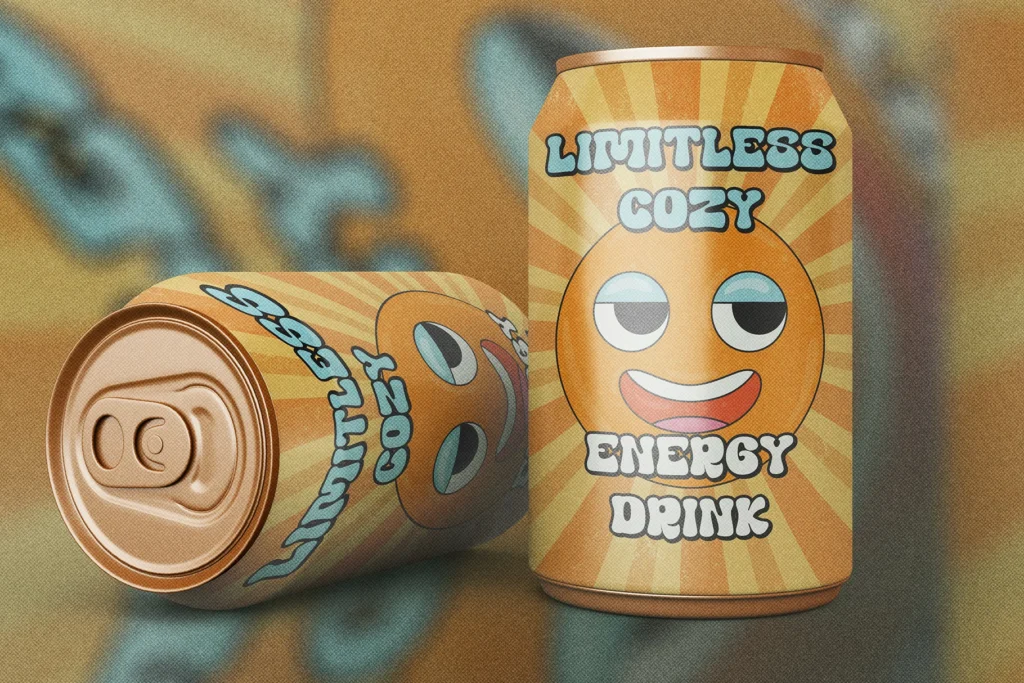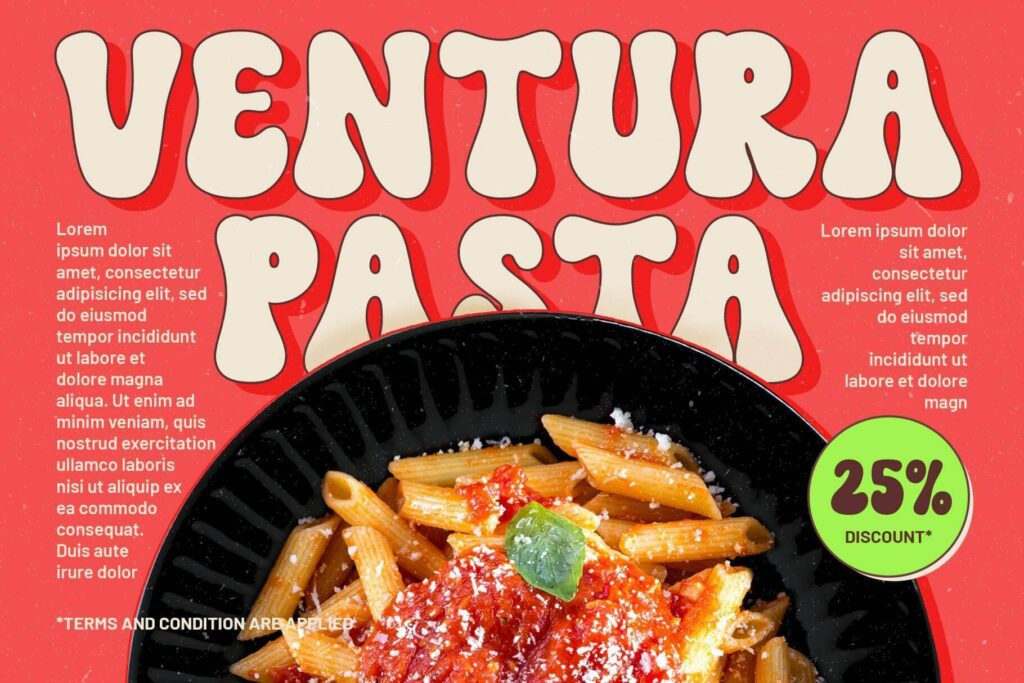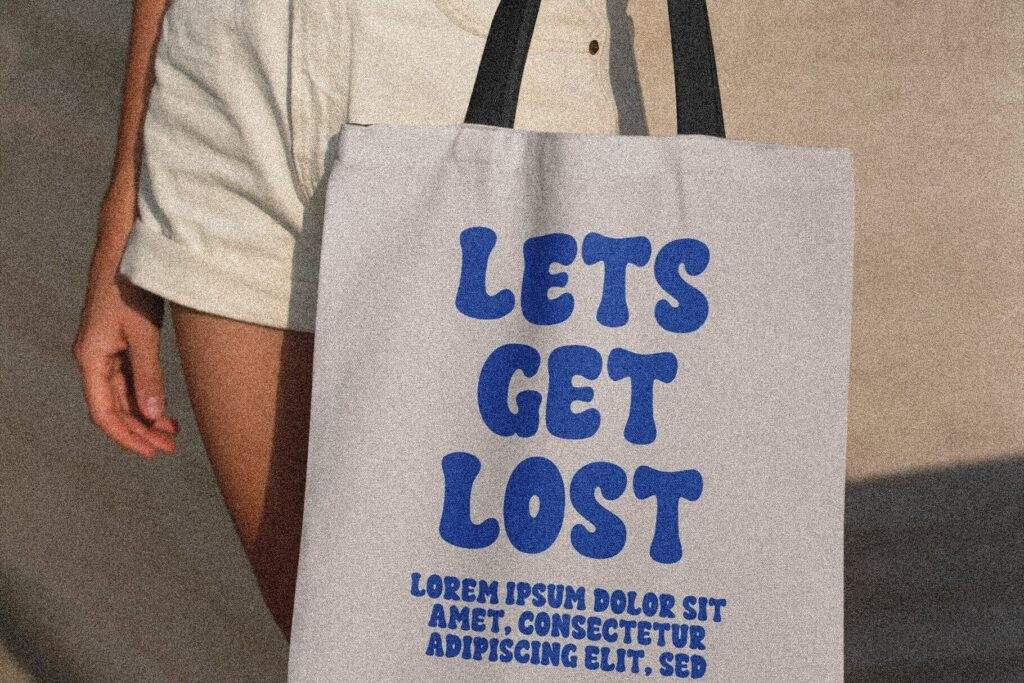
Bubble letter fonts are a fun, expressive, and highly versatile typeface style that evokes a sense of playfulness and creativity. Whether you’re working on a school project, designing party invitations, creating logos, or enhancing your social media posts, a bubble letter font can inject character and charm into your design.
In this ultimate guide, we will explore everything you need to know about bubble fonts style from what they are, how to use them, where to find the best ones, and tips for choosing the right font bubble letters for any creative purpose.
What Is a Bubble Letter Font?
Defining the Style
A bubble letter font is a typeface characterized by thick, rounded, and inflated letterforms that resemble bubbles. These fonts often appear hand-drawn and are commonly used in children’s books, posters, comics, and graffiti art.
Origins and Evolution
Bubble letters trace their roots back to graffiti culture in the 1970s and 1980s, where artists would use rounded lettering for bold visual impact. Over time, this style was embraced by graphic designers and educators for its fun and legible form.
Why Use Bubble Letters Font?
Benefits of Fonts Bubble Letters
- Visual Appeal: Their rounded, chunky appearance draws attention.
- Easy Readability: Despite their playful look, bubble fonts are often very legible.
- Versatility: They work well across various platforms, from education to branding.
- Creativity Boost: They evoke emotion, fun, and creativity, making them perfect for expressive projects.
Popular Uses for Bubble Font Letters
1. Educational Materials
Bubble fonts are often used in classrooms for activities, name tags, posters, and learning materials to make content more engaging for young students.
2. Party and Event Invitations
Bubble letter fonts add a festive and personal touch to birthday invites, baby showers, and themed events.
3. Social Media and Digital Content
Content creators use fonts bubble letters to create eye-catching headlines or overlays on platforms like Instagram and TikTok.
4. Logos and Branding
Brands targeting younger audiences or offering playful products (like toys, candy, or games) often choose bubble letter fonts for logos.
5. Arts and Crafts
Printable bubble fonts are widely used in coloring pages, scrapbooking, and other DIY projects.
Types of Bubble Letter Fonts
1. Classic Rounded Bubble Fonts
These fonts mimic the hand-drawn style seen in graffiti. They typically feature exaggerated curves and a cartoon-like vibe.
2. 3D Bubble Fonts
With depth and shading, 3D fonts create an illusion of volume. They are perfect for headings, titles, and signage.
3. Outline Bubble Fonts
Fonts in outline style let users color them in or overlay textures. They’re often used in educational settings.
4. Graffiti-Inspired Fonts
Edgy and bold, these fonts reflect street art styles and are popular in urban design.
5. Elegant Bubble Fonts
Not all bubble fonts are childish. Some offer smoother lines and stylish curves suited for chic branding and digital art.
Trending Bubble Letter Fonts to Try
Here are some standout font bubble letters options that are definitely worth exploring if you’re looking to add a fun, playful, and eye-catching touch to your creative projects :
Blockier: Retro Groovy Font
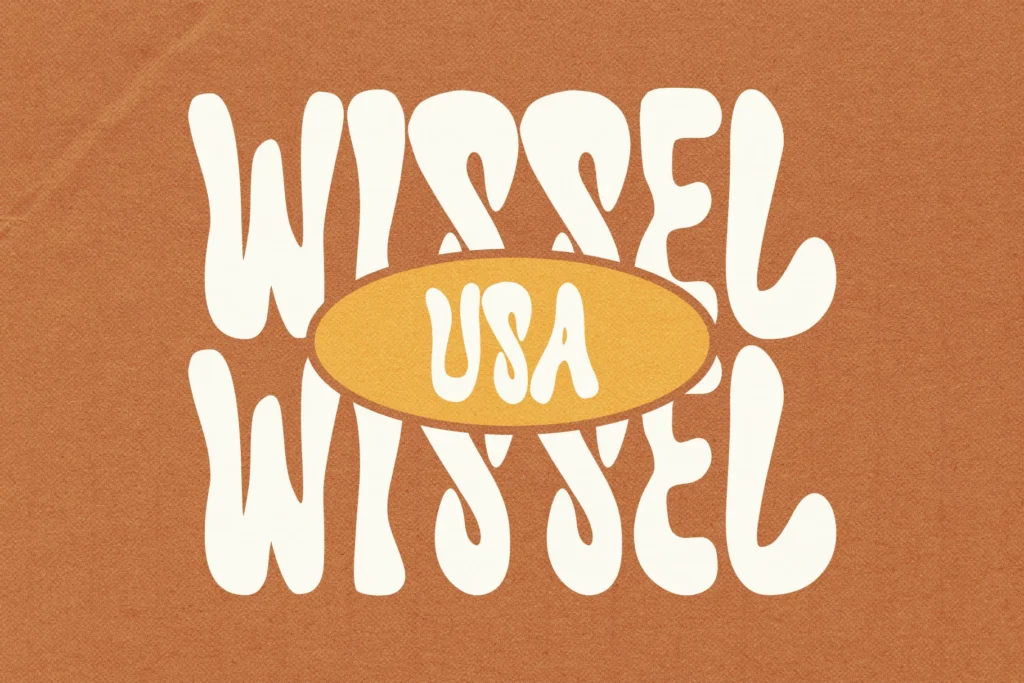
Blockier Font delivers big retro energy with its chunky curves and groovy flair—making it a standout among bubble fonts. It’s bold, it’s bubbly, and it looks like it just walked out of a 70s disco party with platform shoes and a lava lamp. Perfect for nostalgic posters, funky T-shirts, or anything that needs a splash of vintage cool.
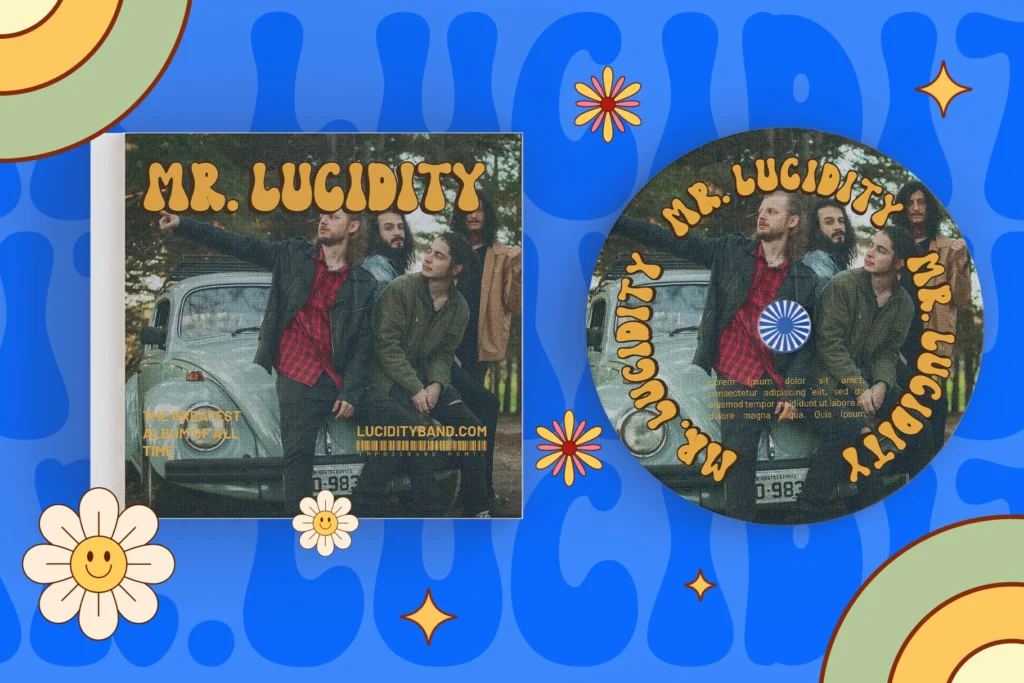
Get ready to elevate your designs with Funky Holiday, one of the most charming bubble fonts out there! With its retro, bouncy vibe, this font oozes vacation energy and playful nostalgia—perfect for posters, t-shirts, and eye-catching social media content.
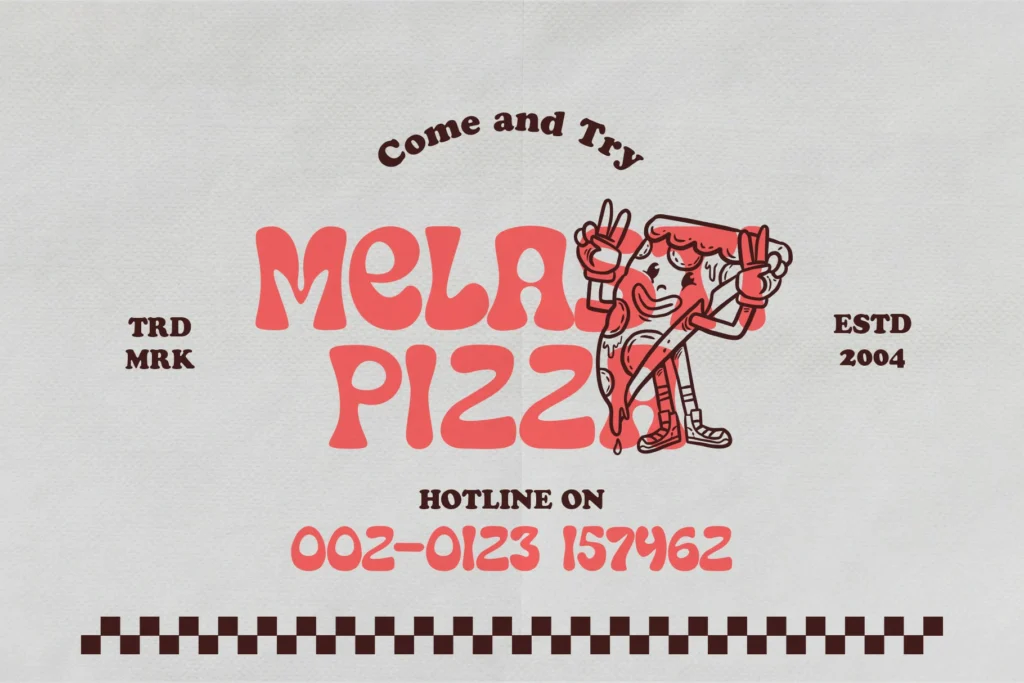
If you’re on the hunt for bubble fonts that scream fun and fabulous, meet Lumida Font — the curvy queen of cheer! With its groovy vibe and friendly, rounded shapes, Lumida isn’t just another typeface; it’s the life of the branding and print party. This font practically gives your design a warm, bubbly hug (without the awkward small talk).
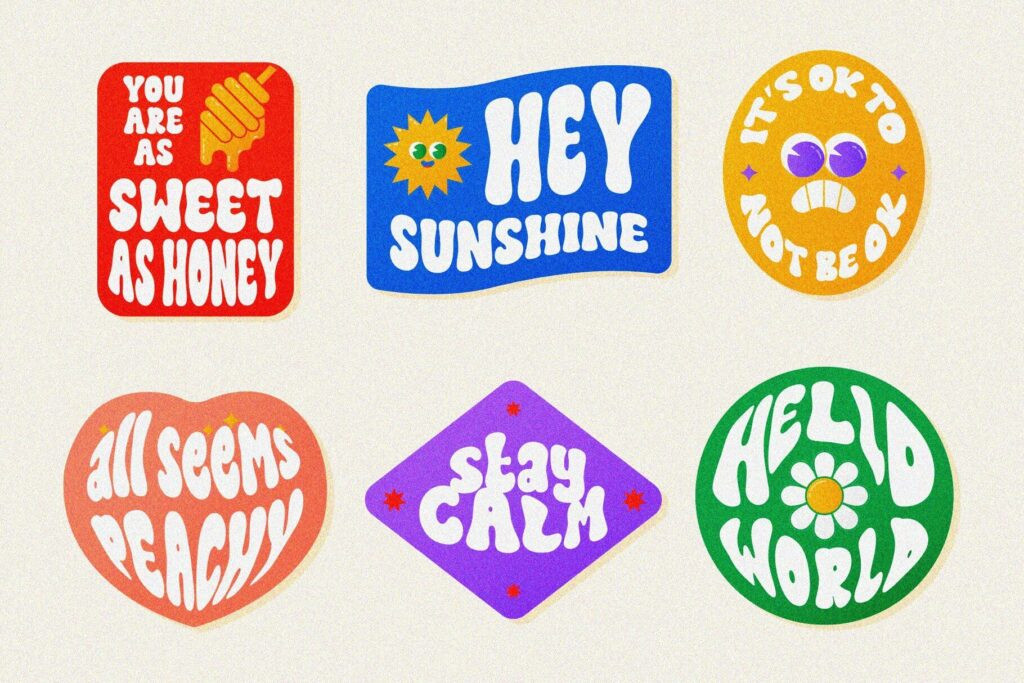
Looking to make your designs pop like bubble wrap at a party? Master Retro Font is your new best friend! With its exaggerated curves and bubbly shapes, this font brings serious throwback vibes while still keeping things fresh and fun. Whether you’re crafting a headline, logo, or just want to sprinkle some joy into your project, these bubble fonts are like confetti for your text—playful, punchy, and impossible to ignore!
Can I make my own bubble font?